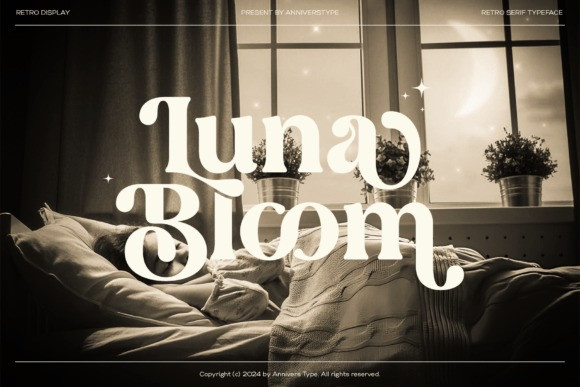
Luna Bloom Font
Designer: Annivers Type
Luna Bloom Font is a retro serif typeface that brings nostalgia and softness into modern design.
Its unique curves and rounded edges create a warm, poetic rhythm reminiscent of classic movie posters and vintage signage.
This typeface includes stylish alternates, ligatures, and multilingual support, making it ideal for editorials, album covers, product packaging, and branding that blends romance with retro charm. Each glyph blooms with character, giving your text a nostalgic glow and artistic texture.
Luna Bloom feels like moonlight in typography — gentle, graceful, and unforgettable.